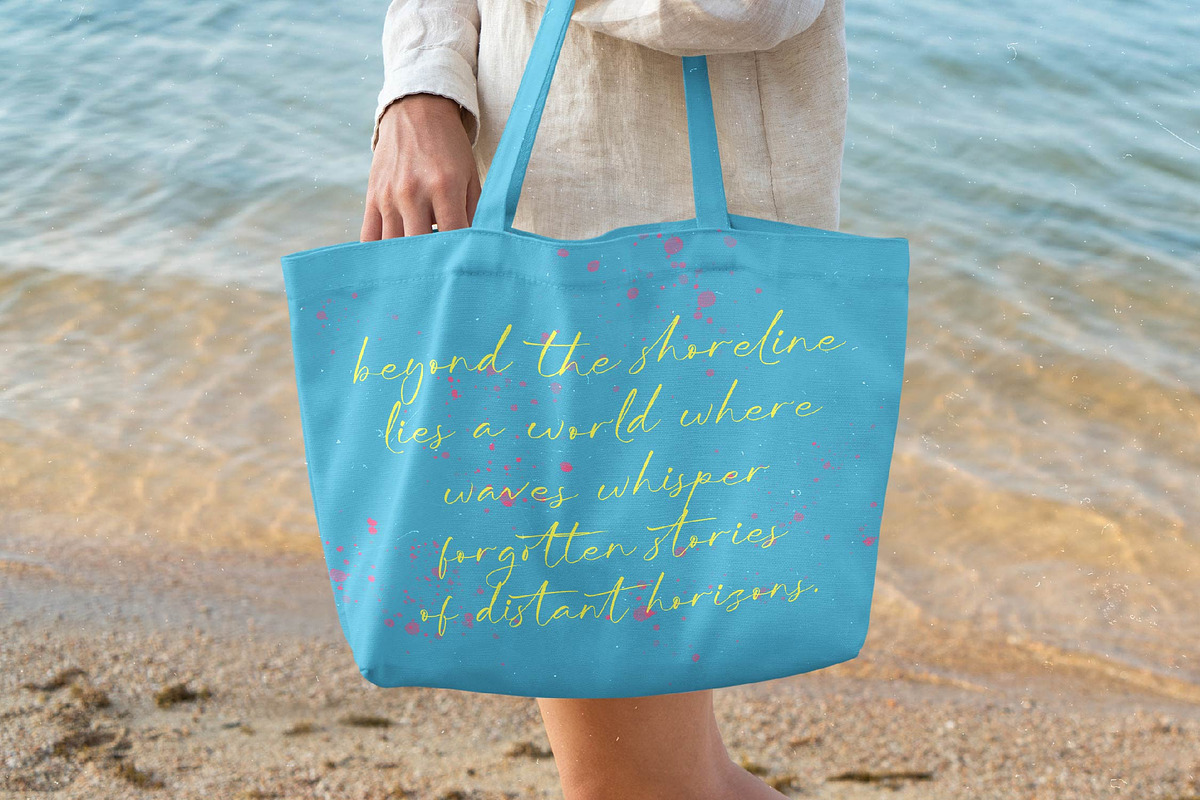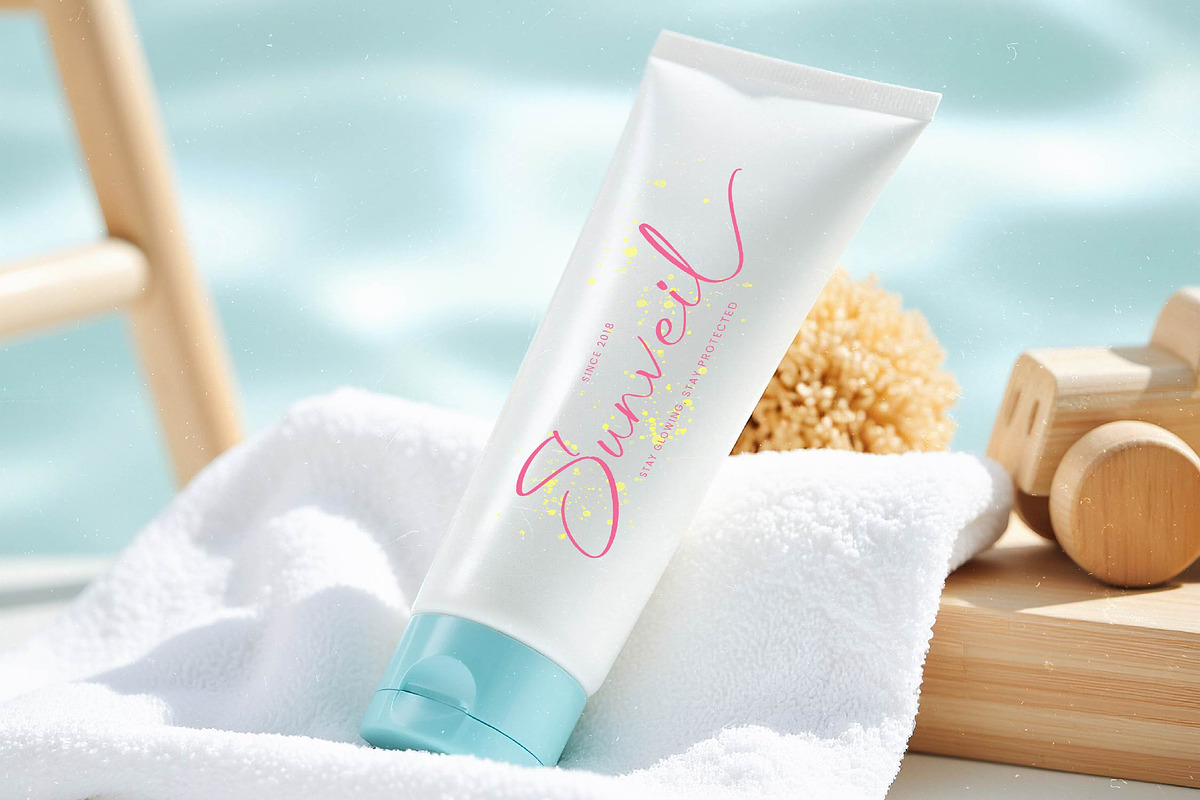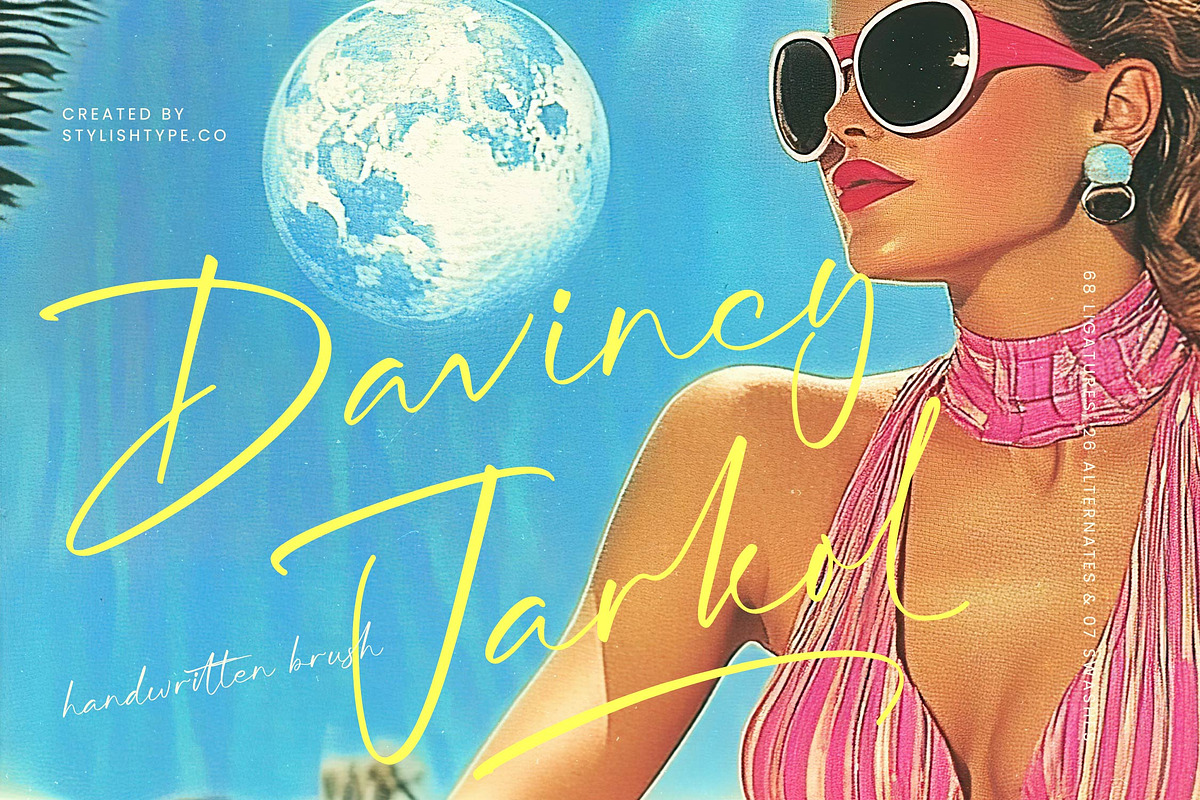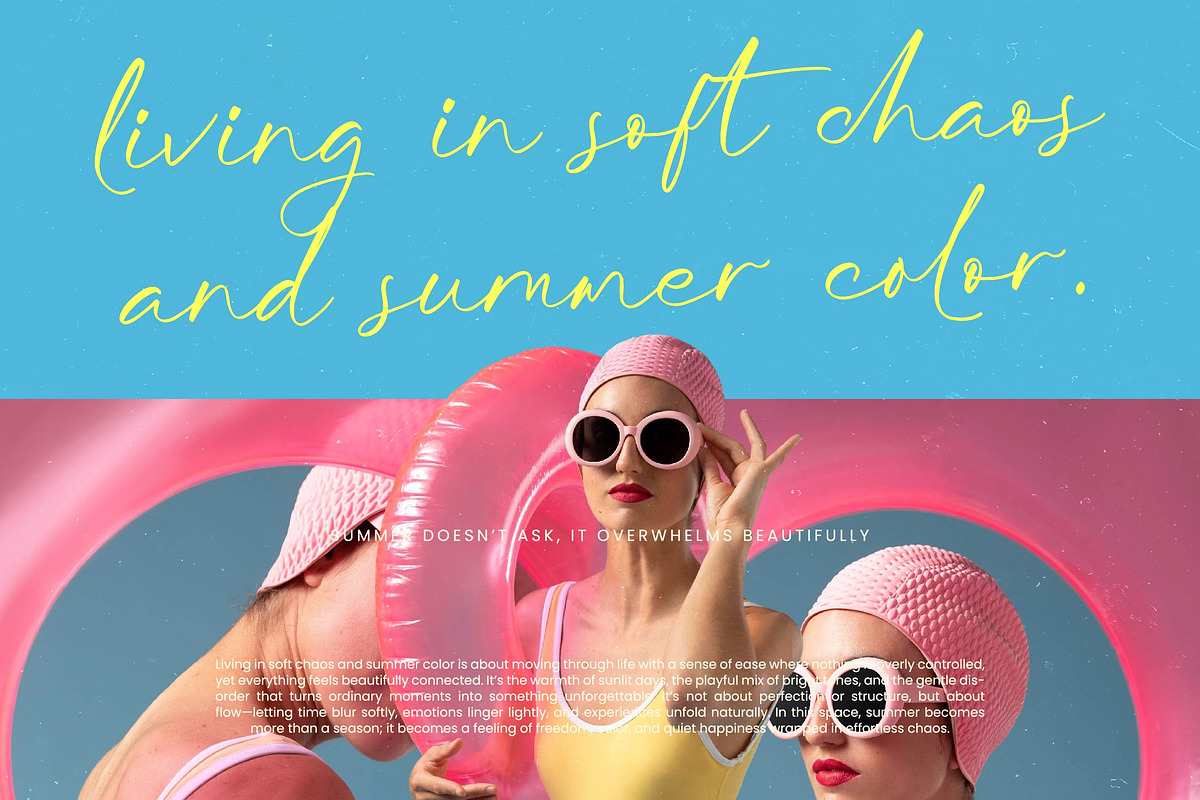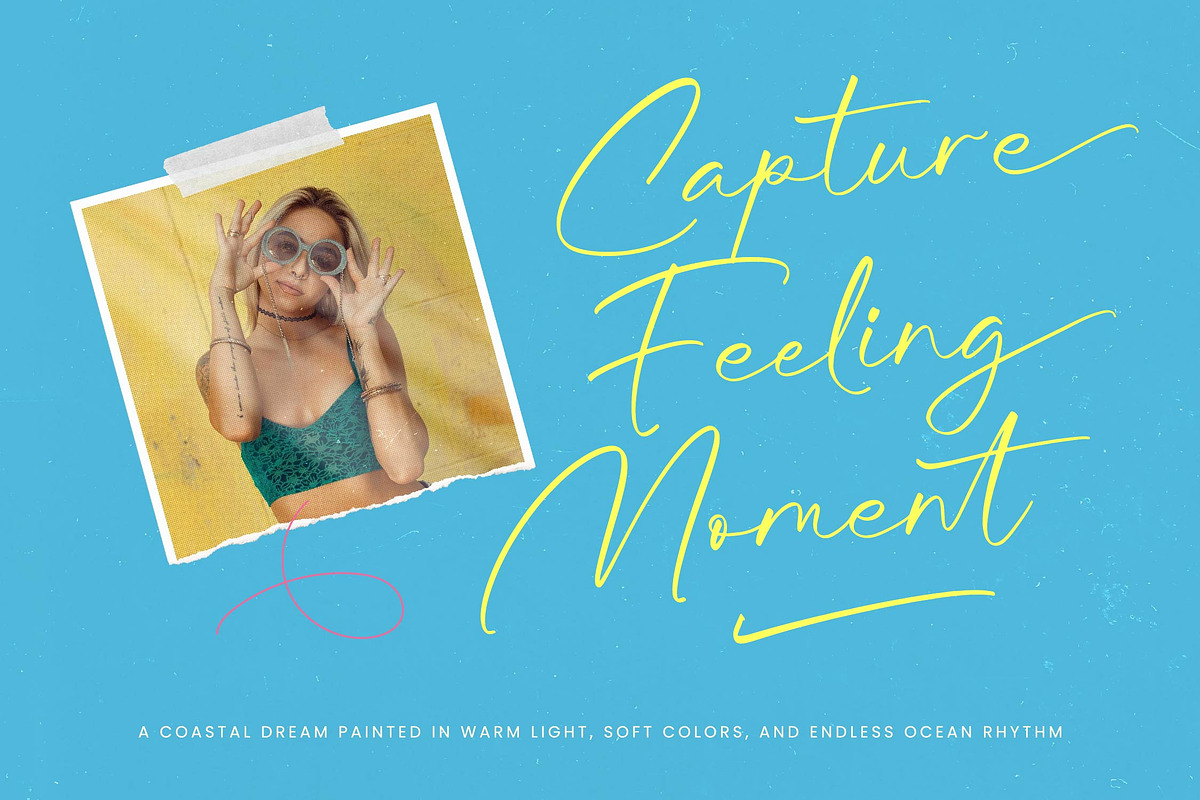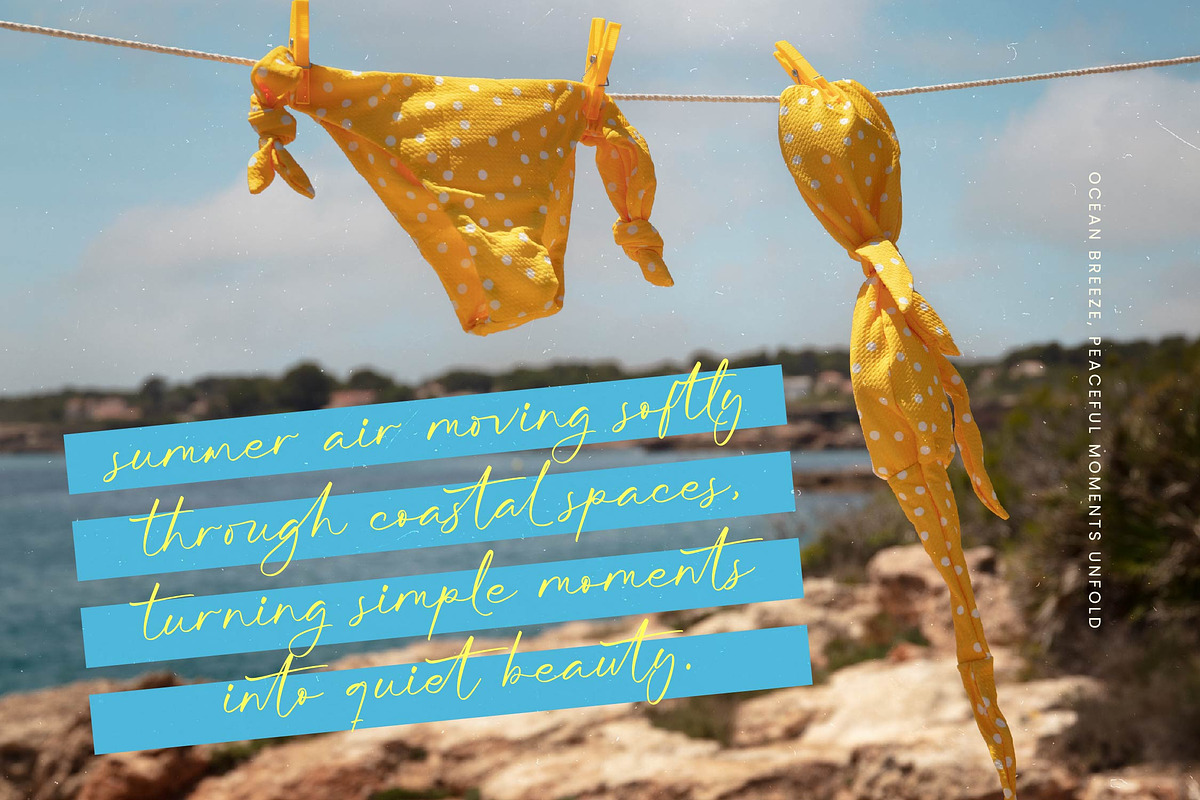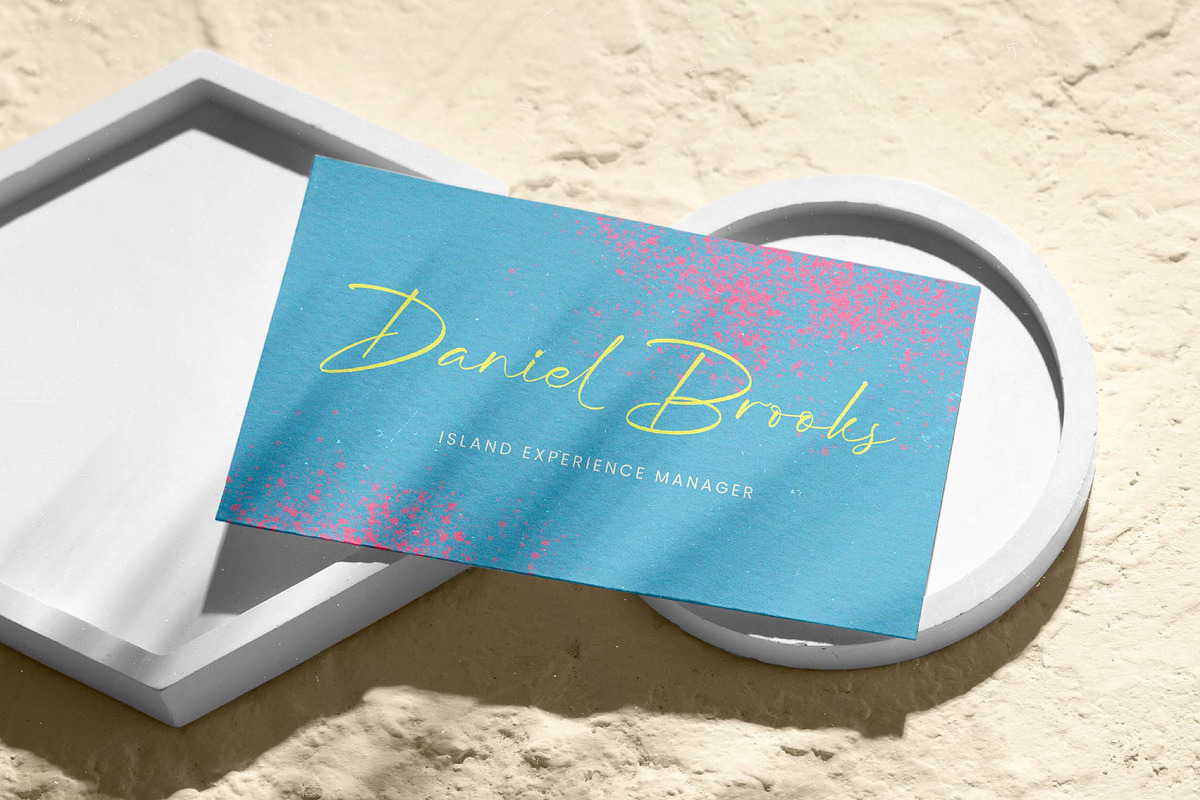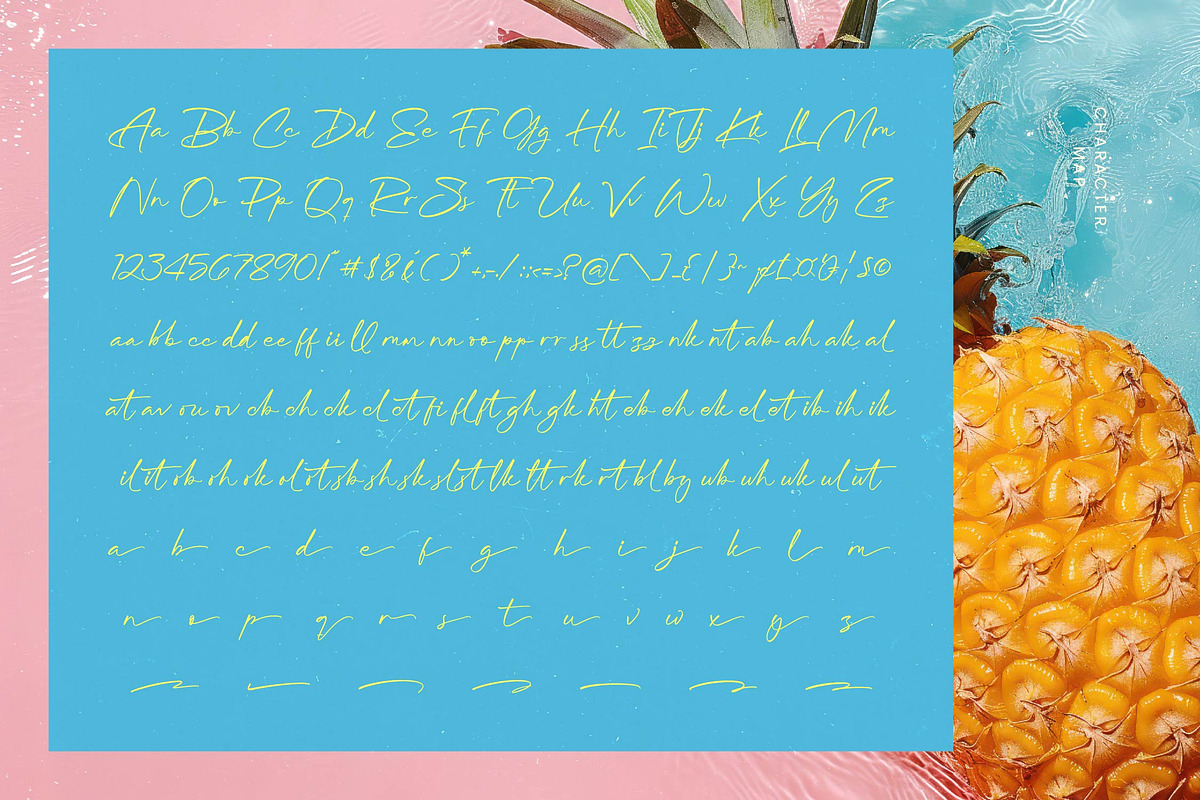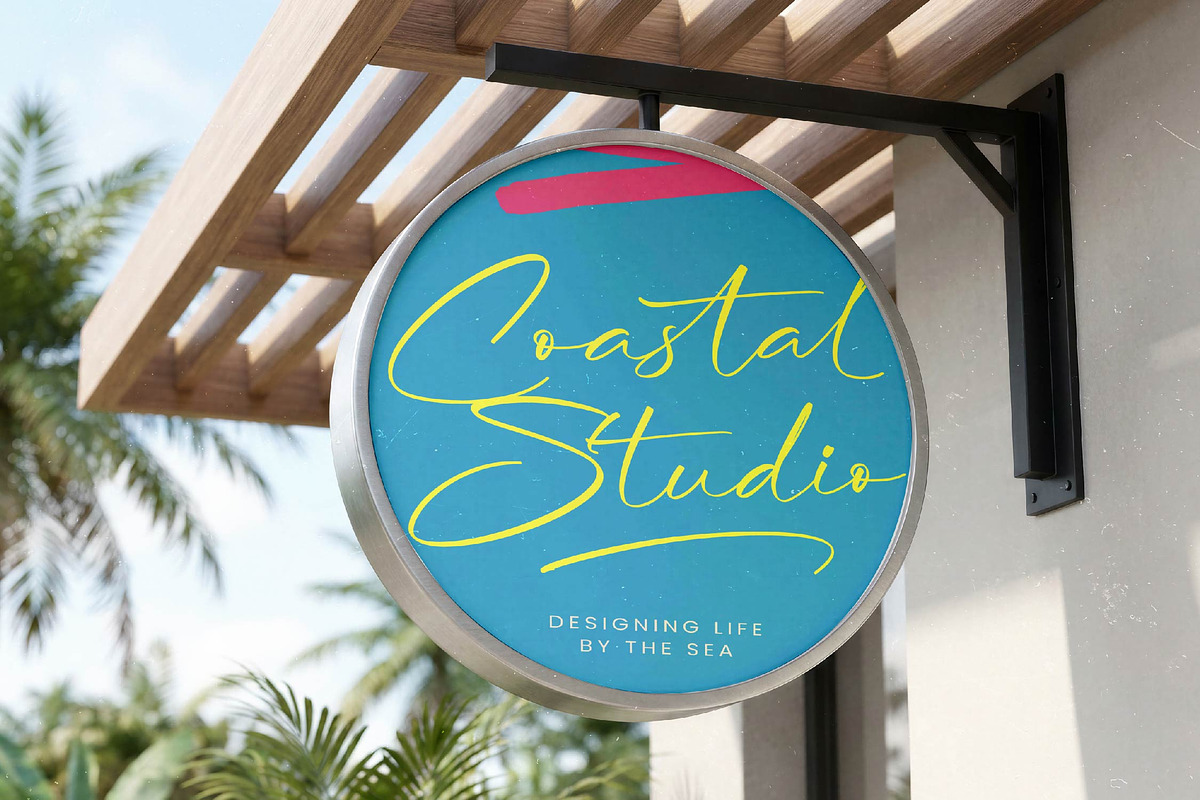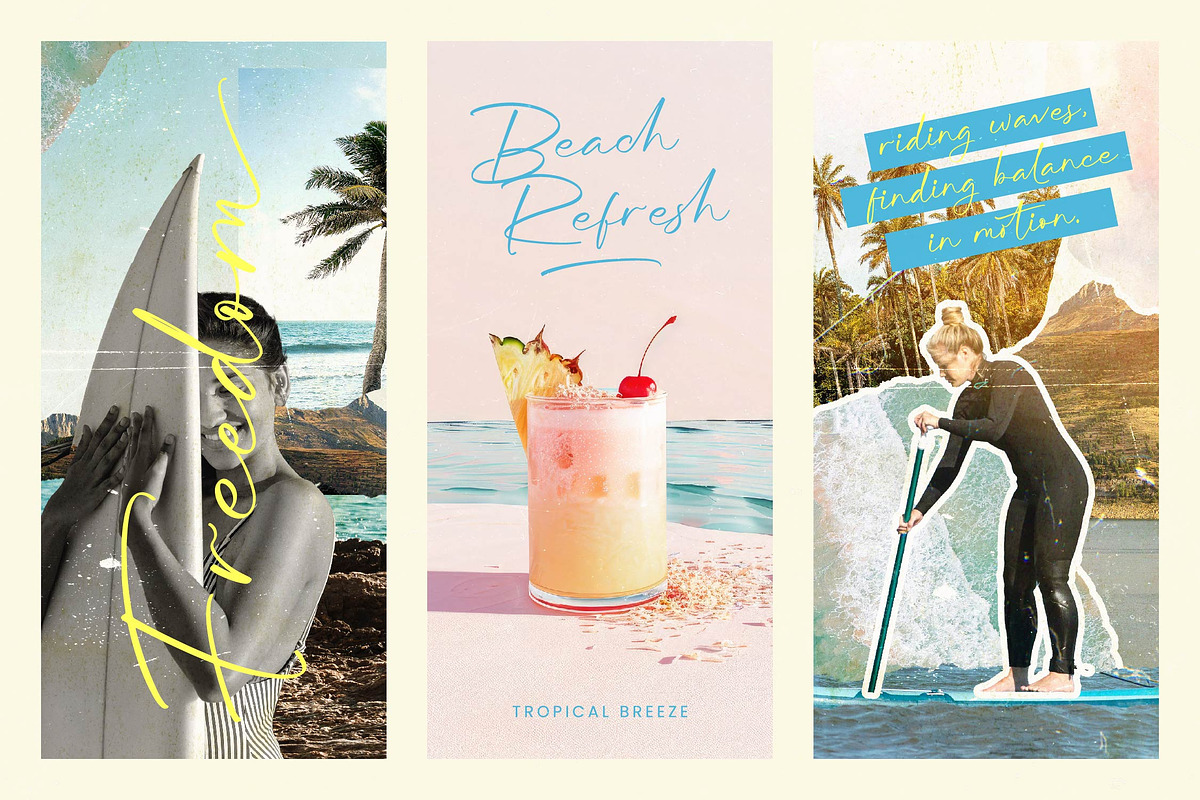
Davincy Jarkol Handwritten Brush
Davincy Jarkol - Handwritten Brush , Elevate your creative vision with the unparalleled elegance of Davincy Jarkol - Handwritten Brush, a typeface that perfectly captures the essence of organic sophistication. This font features expressive strokes and fluid movements, making it an essential tool for designers seeking an authentic aesthetic. Its delicate brush texture provides a high-end feel that transforms standard text into a visual masterpiece, ensuring your brand stands out with a distinctive personality and modern calligraphy charm.
Unlock limitless possibilities in high-end design as Davincy Jarkol - Handwritten Brush serves as the perfect centerpiece for luxury branding and premium packaging. It is perfectly suited for fashion editorials, lifestyle magazines, and bespoke wedding stationery where a personal touch is paramount. With its inclusion of 68 ligatures, 26 alternates, and 7 swashes, this font offers creative flexibility that allows you to customize every layout for a unique visual identity.
Bridge the gap between local charm and global appeal with a typeface built for the modern era. With its extensive multilingual support, Davincy Jarkol - Handwritten Brush adapts seamlessly across global markets, making it incredibly versatile for international projects. Whether you are crafting a social media campaign or a travel brochure, its consistent legibility and broad character set ensure your message is delivered clearly to audiences worldwide, regardless of language.
Transform your digital landscape and achieve commercial success by integrating Davincy Jarkol - Handwritten Brush into your toolkit today. This versatile brush font is not just a stylistic choice but a strategic asset for creative professionals aiming for typographic excellence. By choosing Davincy Jarkol - Handwritten Brush, you invest in a timeless aesthetic that bridges the gap between classic artistry and contemporary design, making every project look polished and professional.